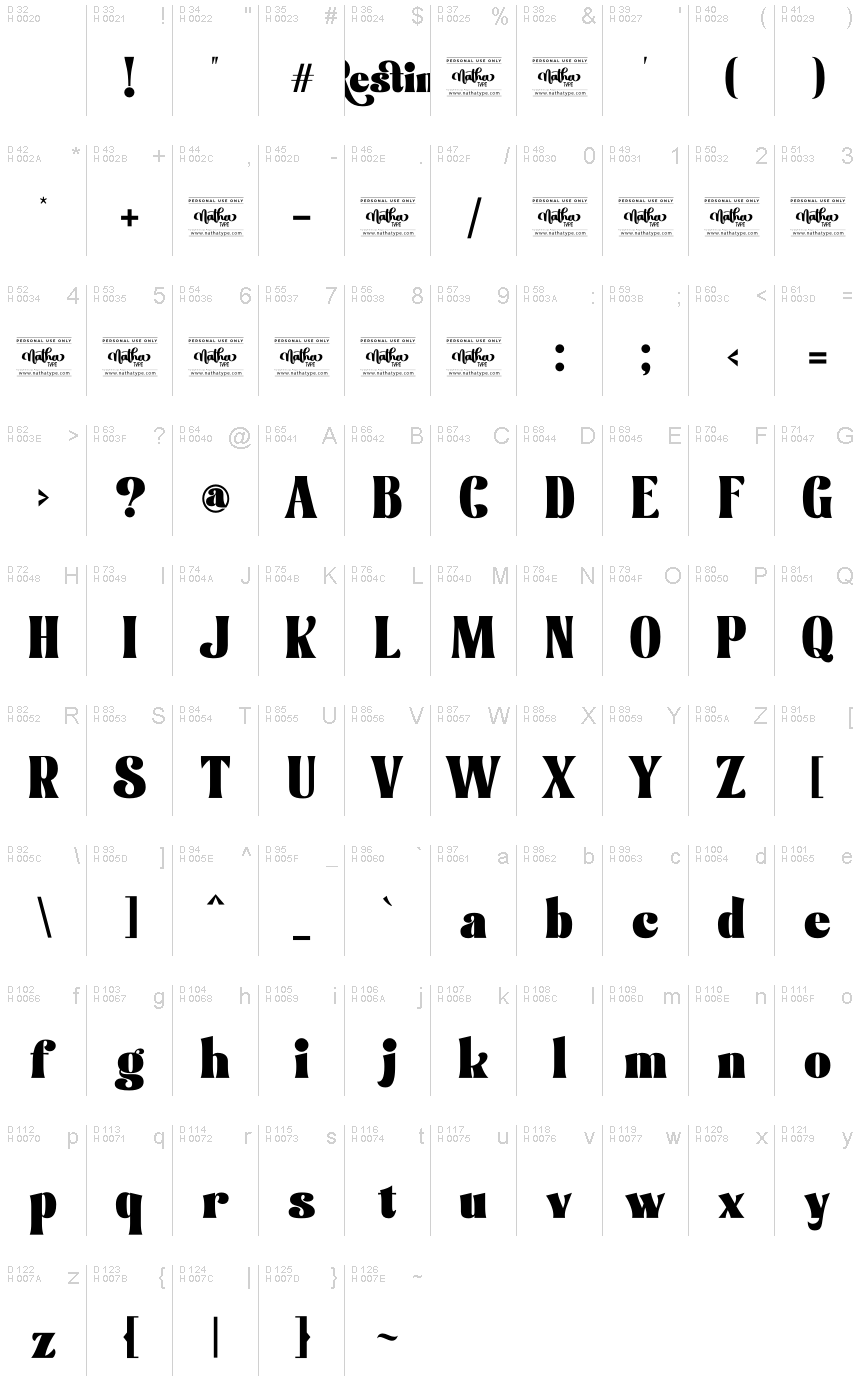
Resting Personal Use
Resting, designed by Nathatype, embodies a striking blend of elegance and boldness. Its serif style exudes sophistication, enhanced by the pronounced weight that captures attention effortlessly. Each letter presents a confident stance, richly conveying character while maintaining readability.
Visually appealing, Resting’s fluid curves and commanding presence create an inviting yet authoritative vibe suitable for diverse contexts. Whether gracing the pages of a luxury magazine or emblazoned across stylish branding materials, it adds an air of refinement and creativity.
Ideal for headlines, logos, and promotional pieces, Resting stands out as a font that not only communicates but also captivates. Its unique charm makes it an excellent choice for projects where making a memorable impression is key.